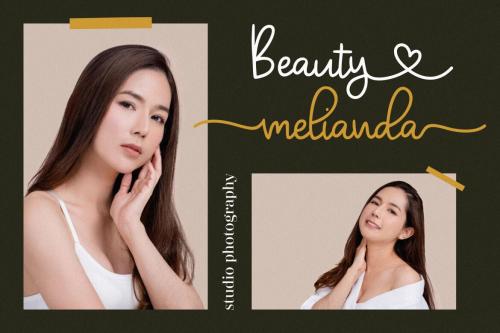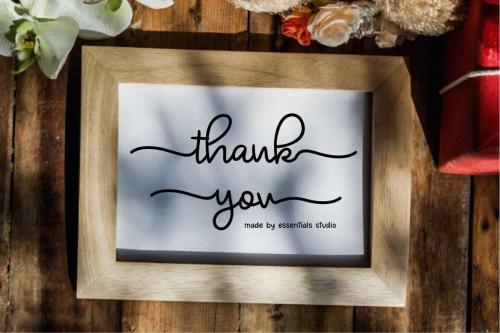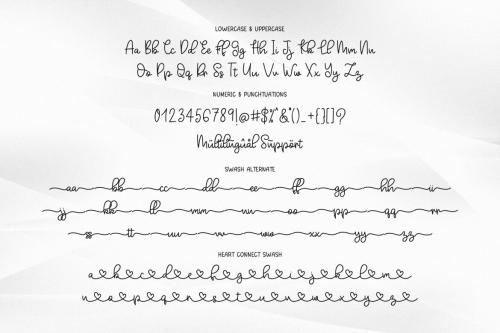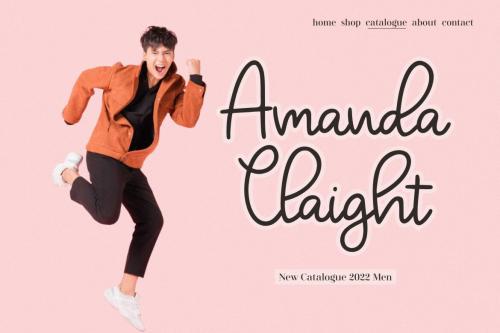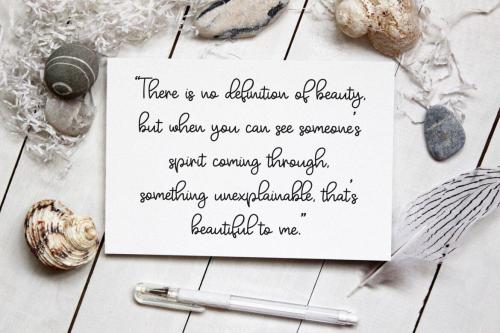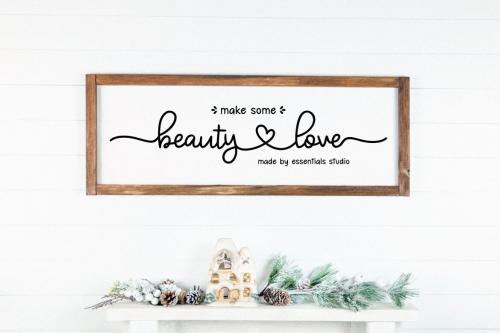
Proudly Present, Mada Kayla
Mada Kayla Is Moinoline Handwritten Lovely Font Include 70+ Stylish love and Swash Alternate
Mada Kayla is perfect for product packaging, branding project, megazine, social media, wedding, or just used to express words above the background.